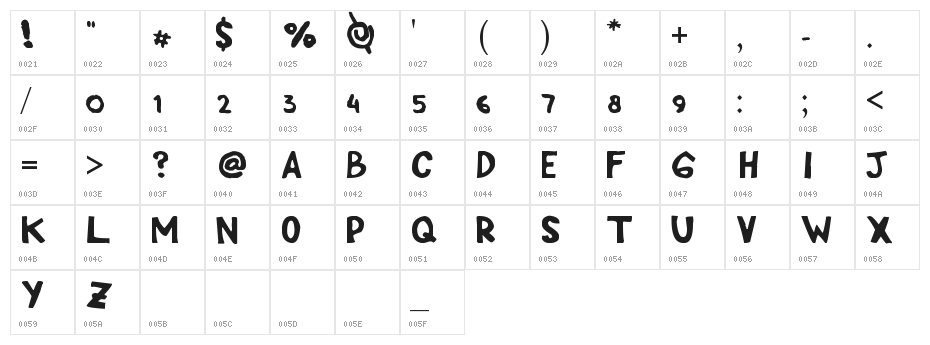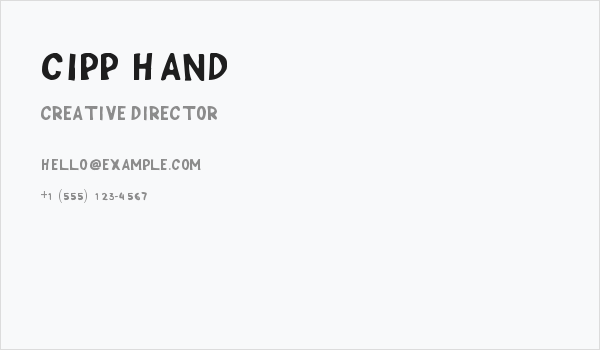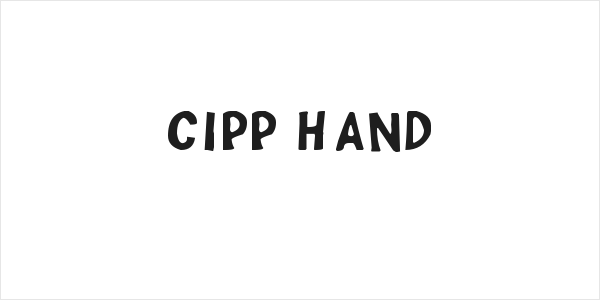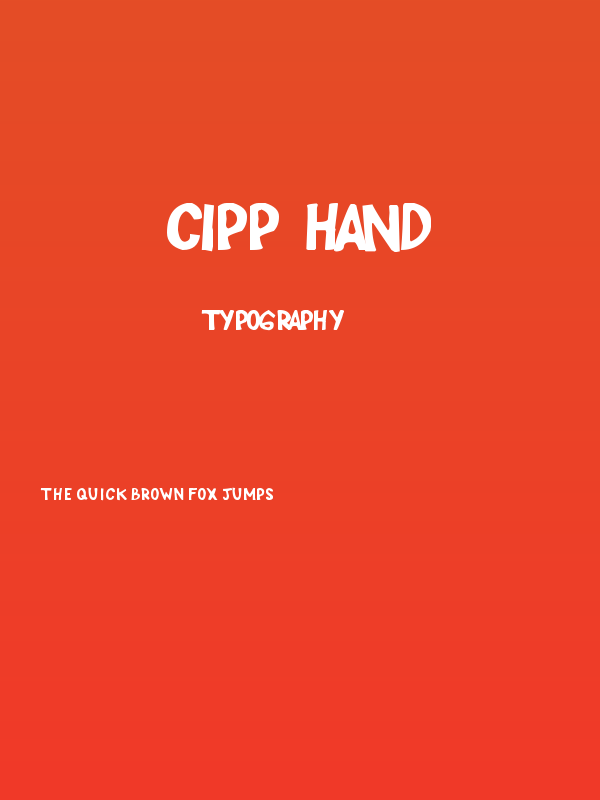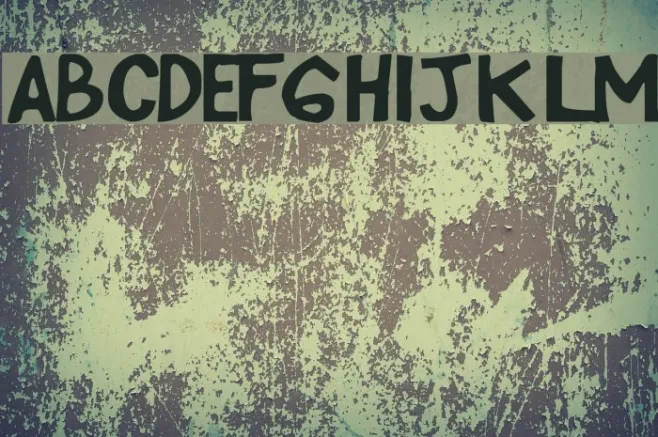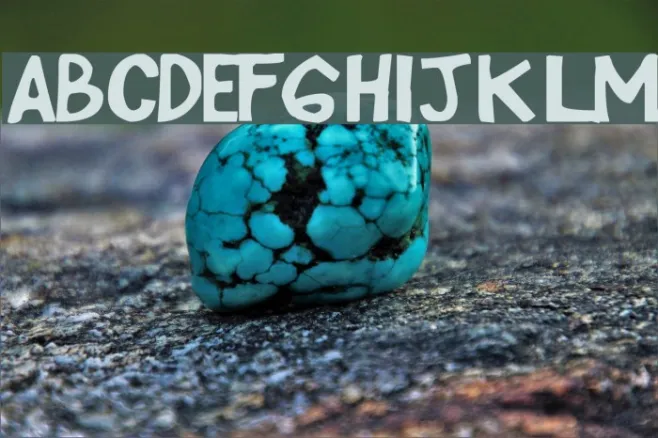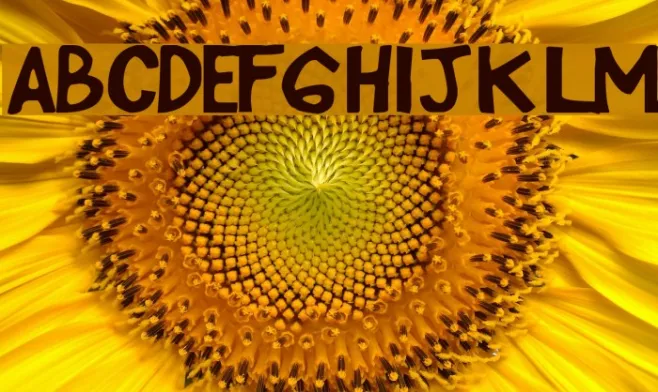
Cipp Hand Font
Cipp Hand Description
This playful and energetic font features bold, hand-drawn characters with a lively and informal style. The uppercase and lowercase letters are crafted with a whimsical touch, showcasing irregular strokes and varying thicknesses that add a sense of movement and personality. The numbers and special characters maintain this dynamic aesthetic, making the font suitable for creative and casual applications. Its unique charm lies in the slightly uneven lines and the organic feel, reminiscent of hand-painted signage or doodles. This font is ideal for projects that require a fun and approachable look, such as children's books, playful branding, or artistic posters.
| Overall Style | Playful, Energetic, Informal |
| Proposed Projects | Children's books, playful branding, artistic posters, casual invitations. |